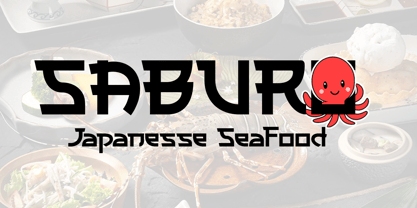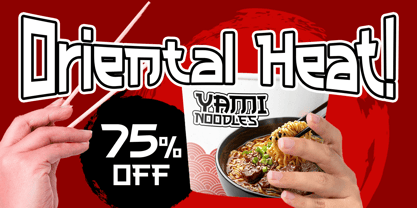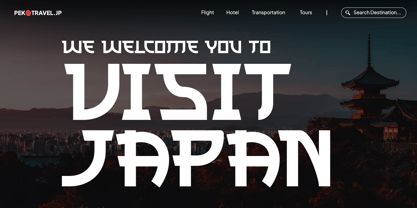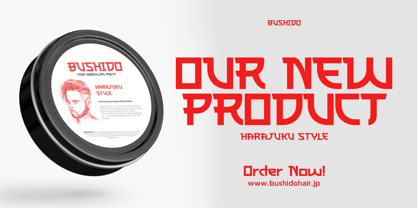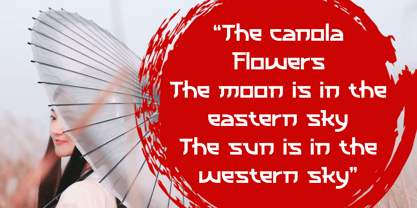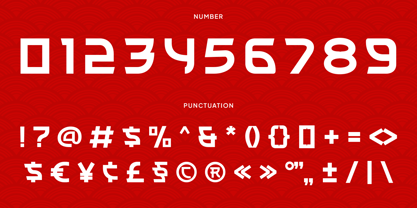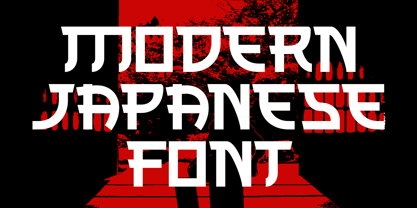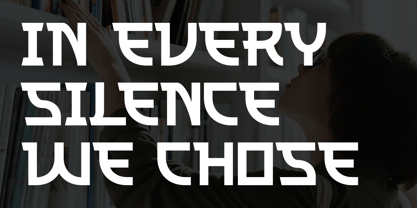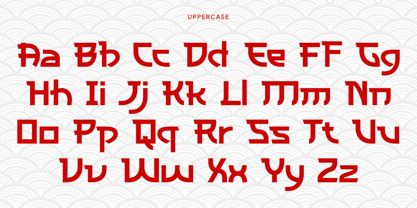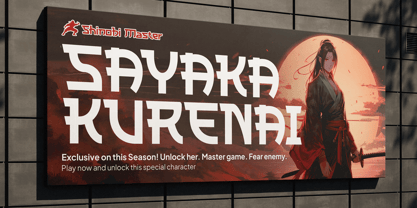
Kanzuri
Die Schriftfamilie Kanzuri wurde von Galang Bryan entworfen und von Pekotype veröffentlicht. Kanzuri enthält 1 Stile. Mehr über diese Familie
KANZURI is a bold display font inspired by Japanese culture and modern design. With strong geometric shapes and a clean, powerful look, it’s perfect for branding, logos, packaging, posters, restaurant projects, and creative designs with an Asian-inspired theme. Designed to be eye-catching and memorable, KANZURI brings a unique blend of traditional influence and contemporary style to any project.